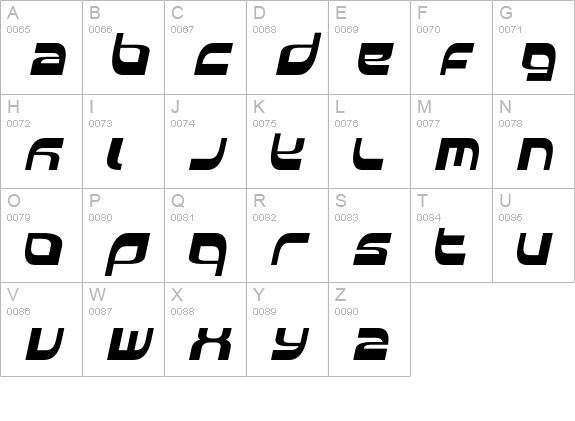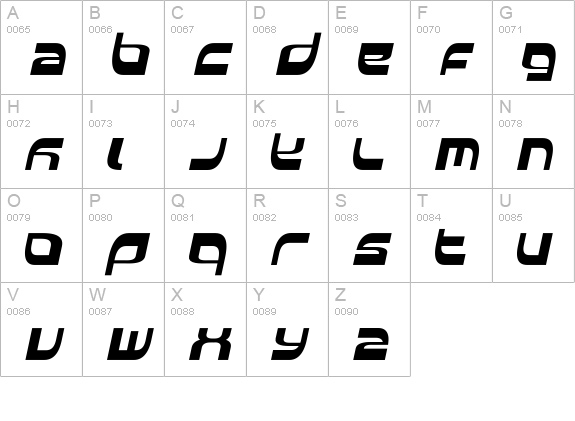
BDElside-capsitalic Font Details
BDElside-capsitalic font is a stunning display typeface that exudes elegance and sophistication. Its unique design features stylish capital letters with a touch of italic flair, making it perfect for adding a touch of class to your projects. Whether you're working on invitations, branding, posters, or any other creative endeavor, this font is sure to make a statement. And the best part? BDElside-capsitalic font is completely free to download at FontsMarket.com! With just a few clicks, you can access this beautiful font and elevate your designs to the next level. Don't miss out on this opportunity to enhance your work with the timeless charm of BDElside-capsitalic font. Download it today and let your creativity shine!